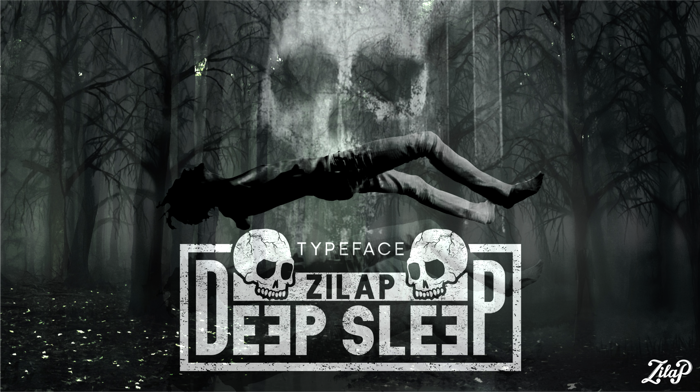
Zilap Sleep Font
Grunge Style
ZILAP SLEEP: This font was born from a dream, hence its name. It is a simple font and worn style, given its simplicity and good aesthetics, it can be used for logos and all kinds of graphic work.
This font was born through a dream, hence its name. It is a simple font with a worn style, given its simplicity and good reading, it can be used for logos and all kinds of graphic works.